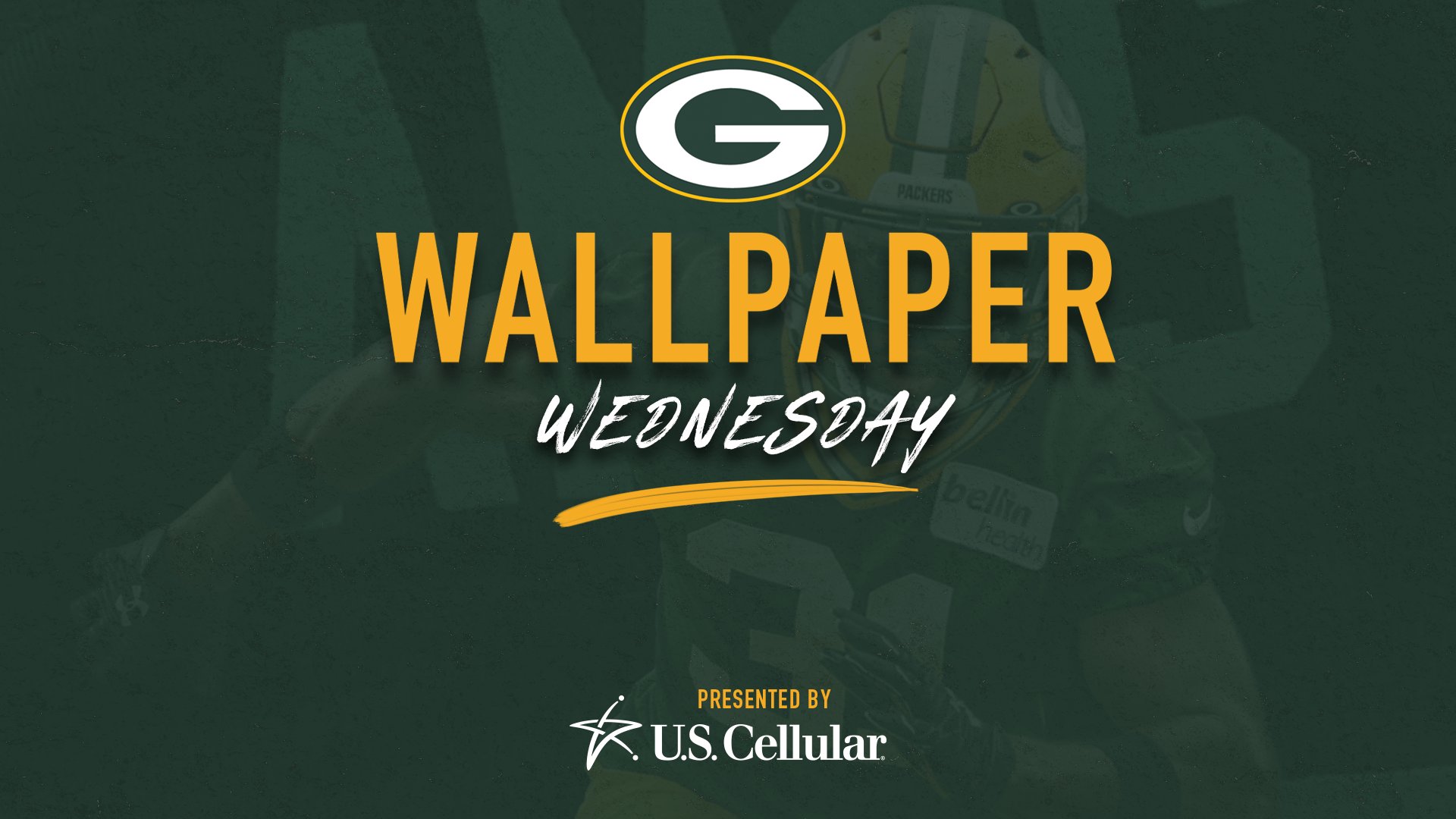
Green Bay Packers Font Download
Green bay packers font download. Green bay packers font font meme generate designs with green bay packers font. It is a font font created in 2015 and has been downloaded 9632 times. The teams official colors are dark green gold white.
The wordmark is set in a stencil font which is very similar to gi. First seen on dafont. On snot and fontson snot and fonts.
Download free nfl packers font view its character map and generate text based images or logos with nfl packers font online. The green bay packers redesigned logo resembles a football with the letter g inside it having the same shape. Download the free font replicating the green bay packers logo and many more at the original famous fonts.